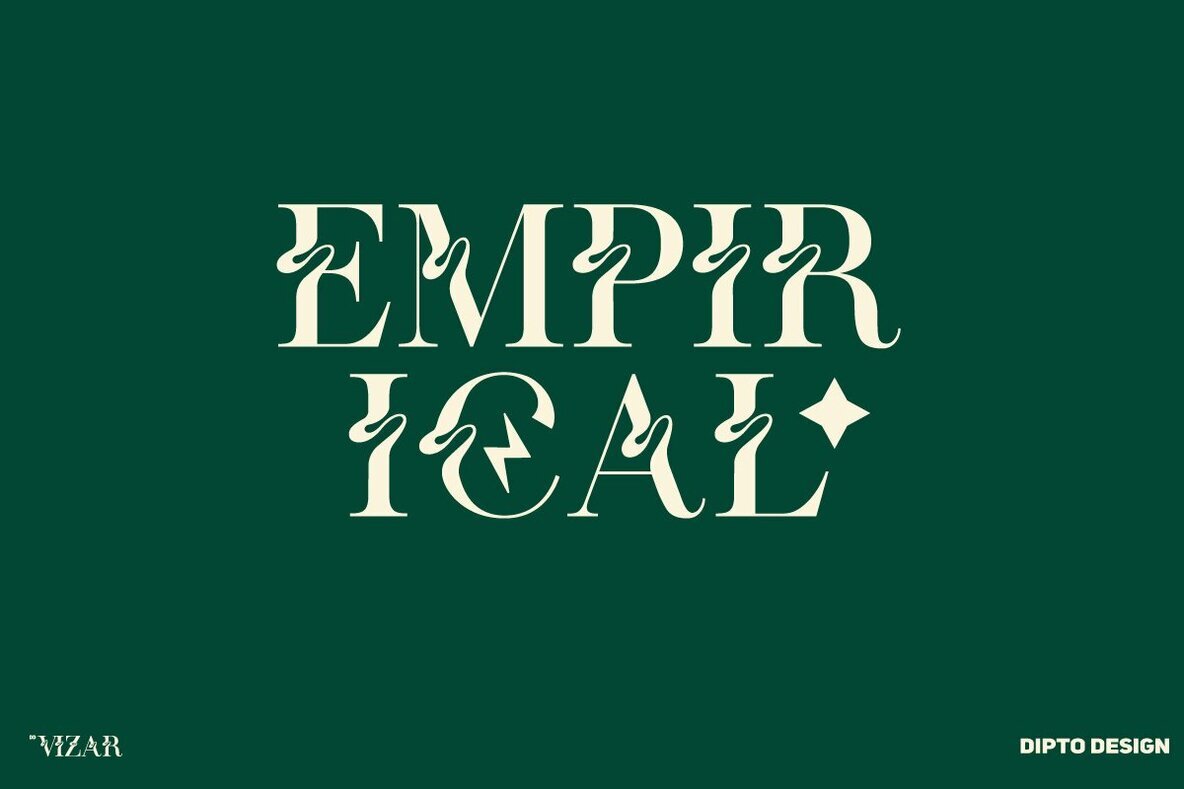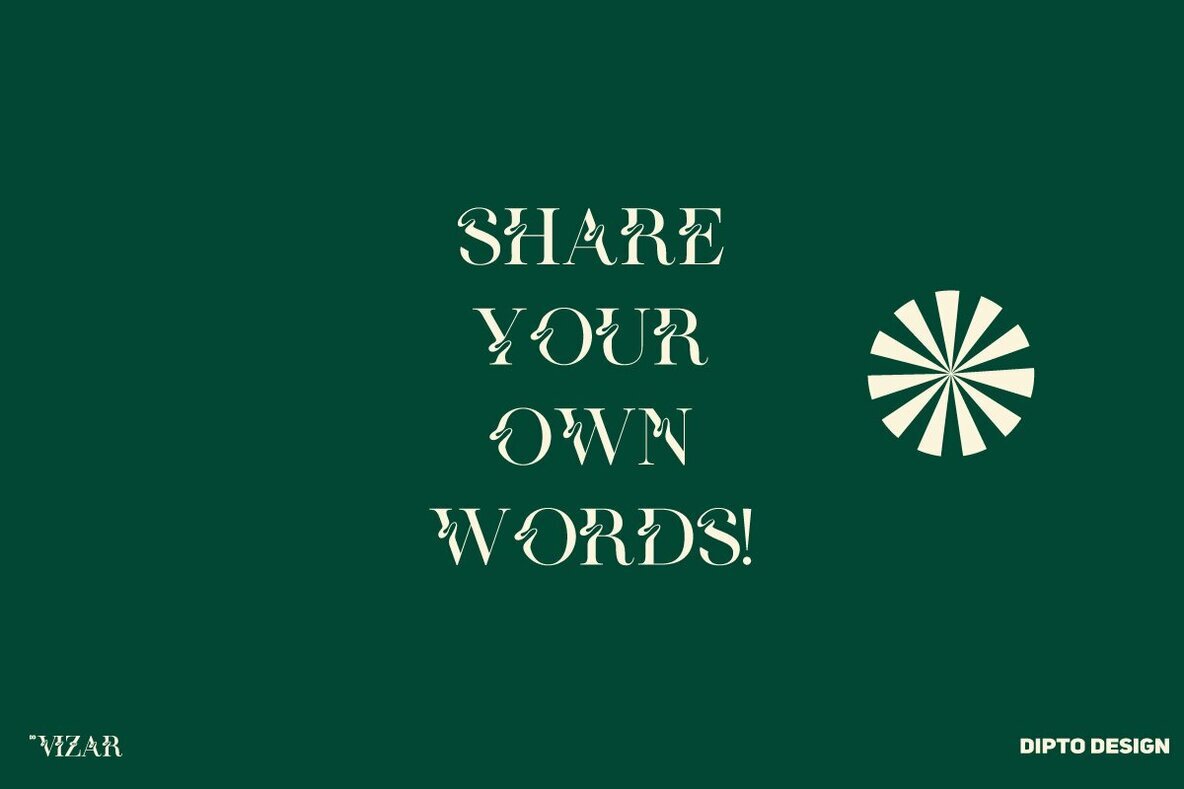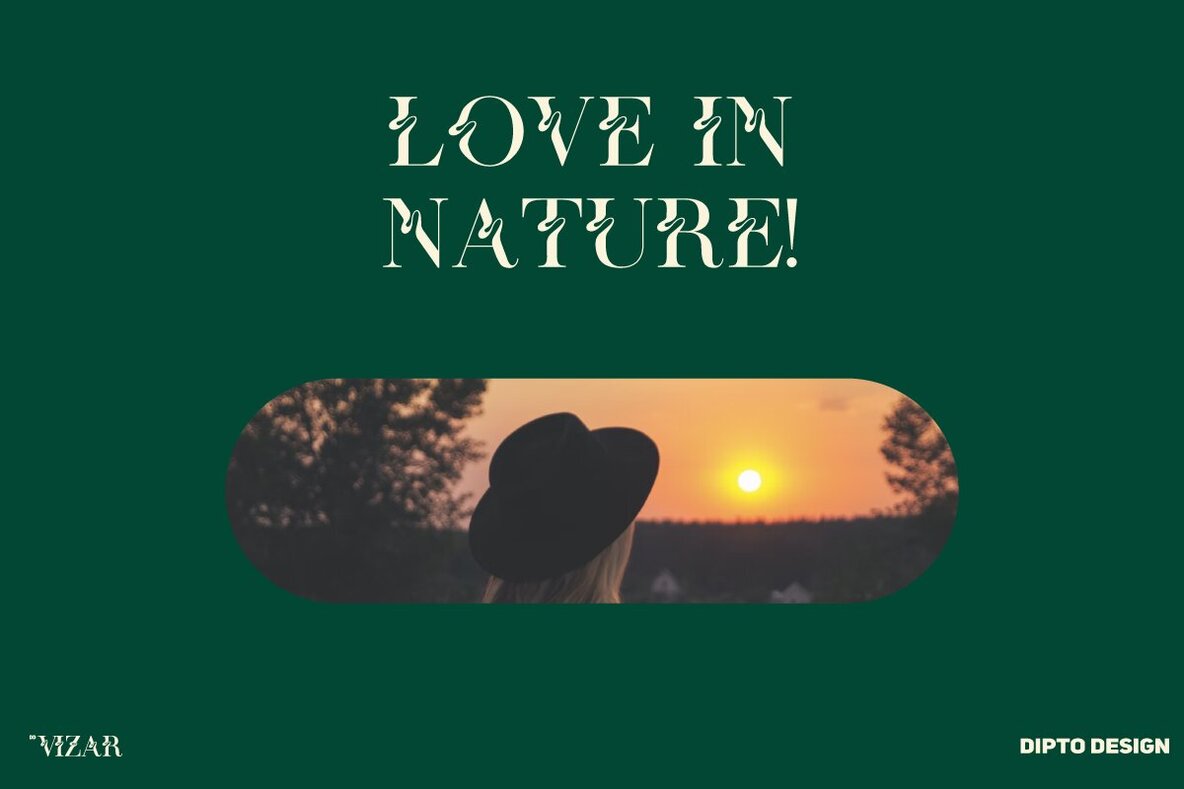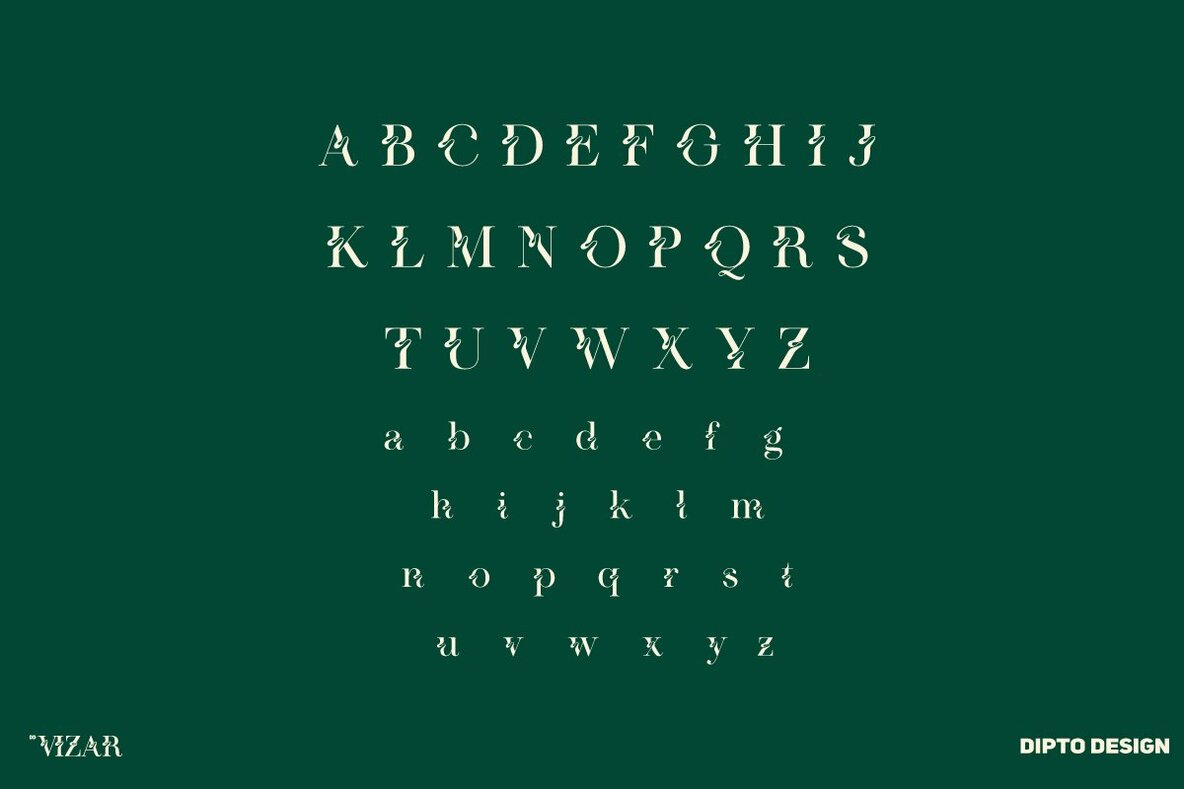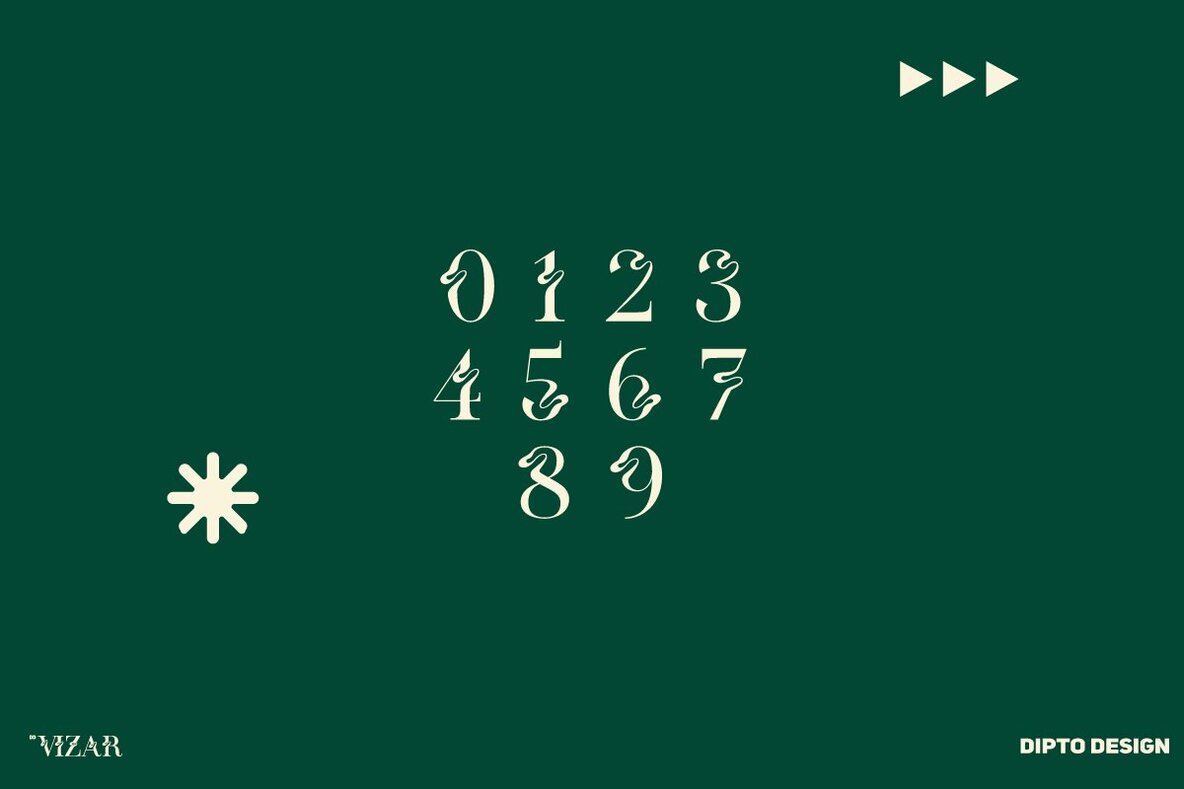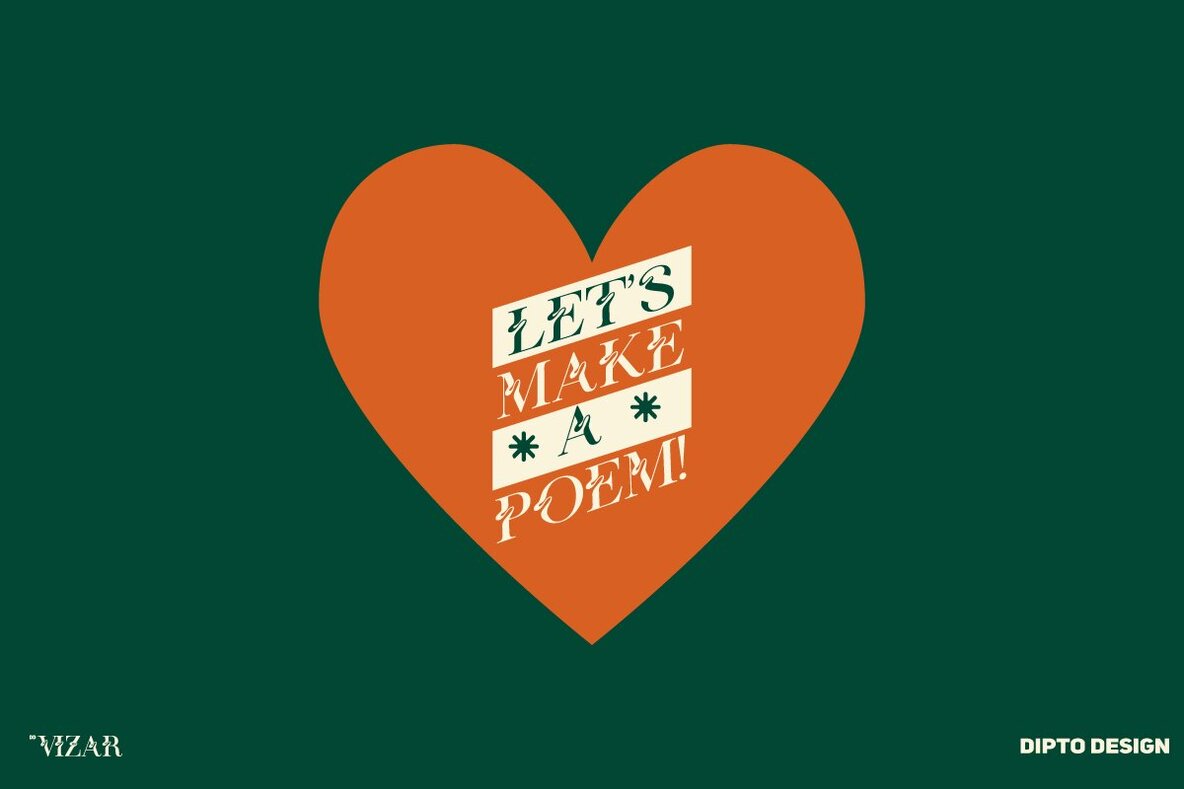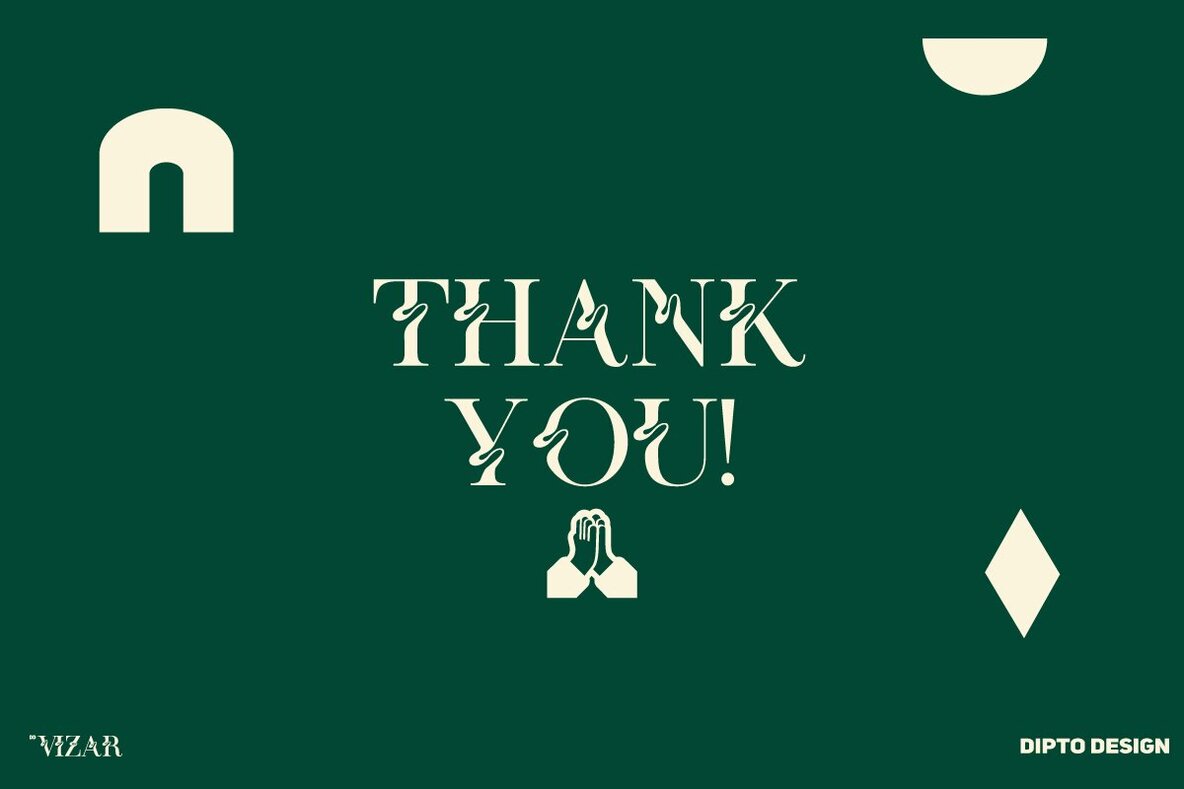
Dd Vizar Font
DD Vizar
DD Vizar is an experimental font. “DD Vizar” — an avant-garde font that pushes the boundaries of design! This experimental typeface is a bold statement for creators seeking to break free from the ordinary. With its unique character set and innovative design, “DD Vizar” transforms text into a visual journey. Perfect for those who dare to be different, this font adds an edgy flair to logos, headlines, and creative projects. Elevate your designs and make a statement with DD Vizar.